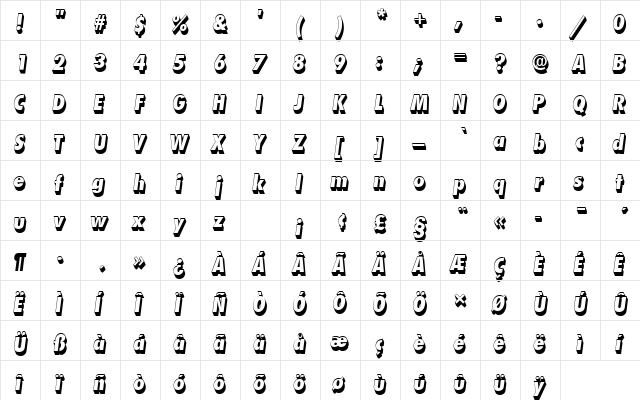
FuturaTExtBolConOblSh1 Regular
Design Context for FuturaTExtBolConOblSh1 Typeface
FuturaTExtBolConOblSh1 has a distinctly futuristic character, with geometric precision and clean angles that feel at home in technology, gaming, and sci-fi contexts.